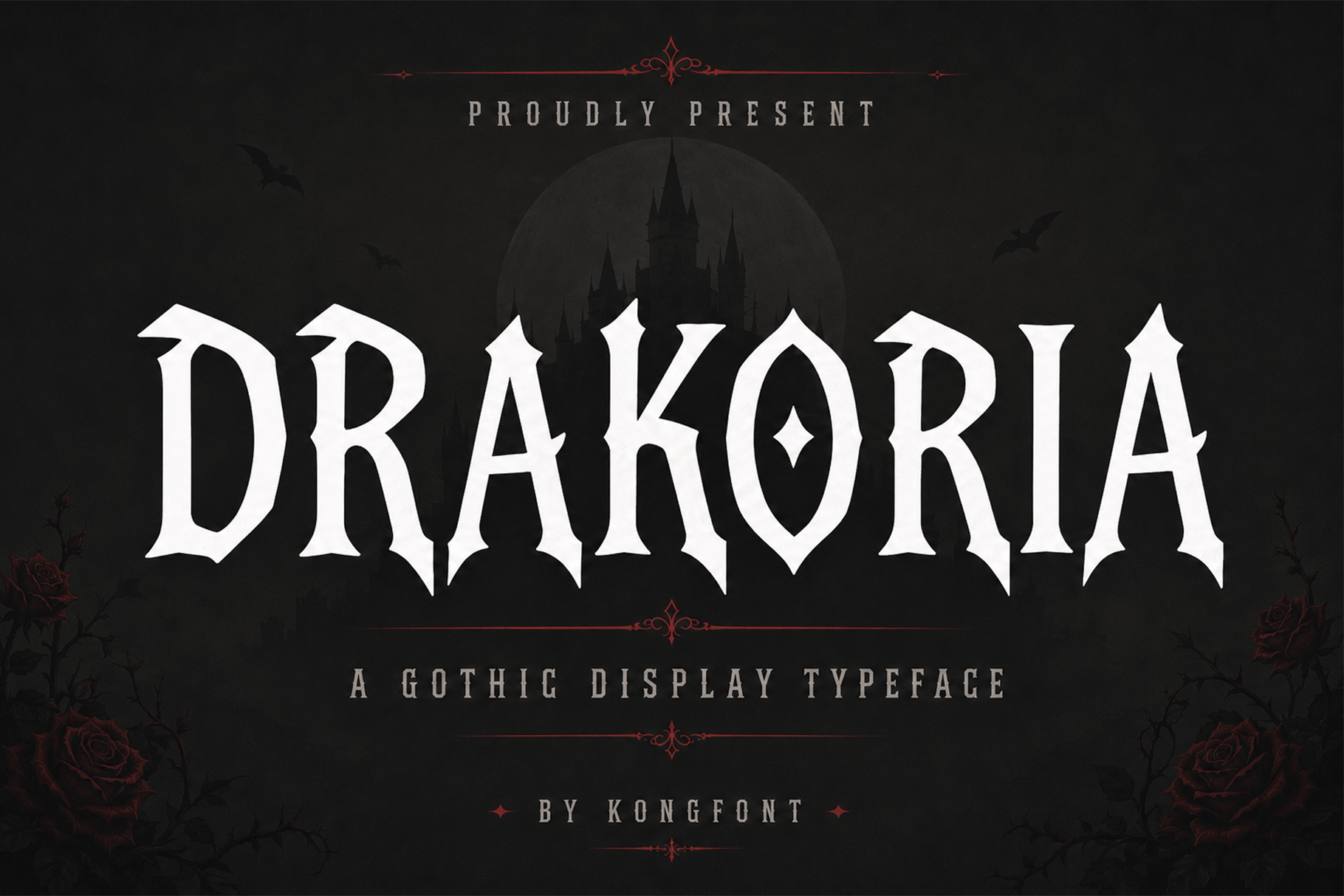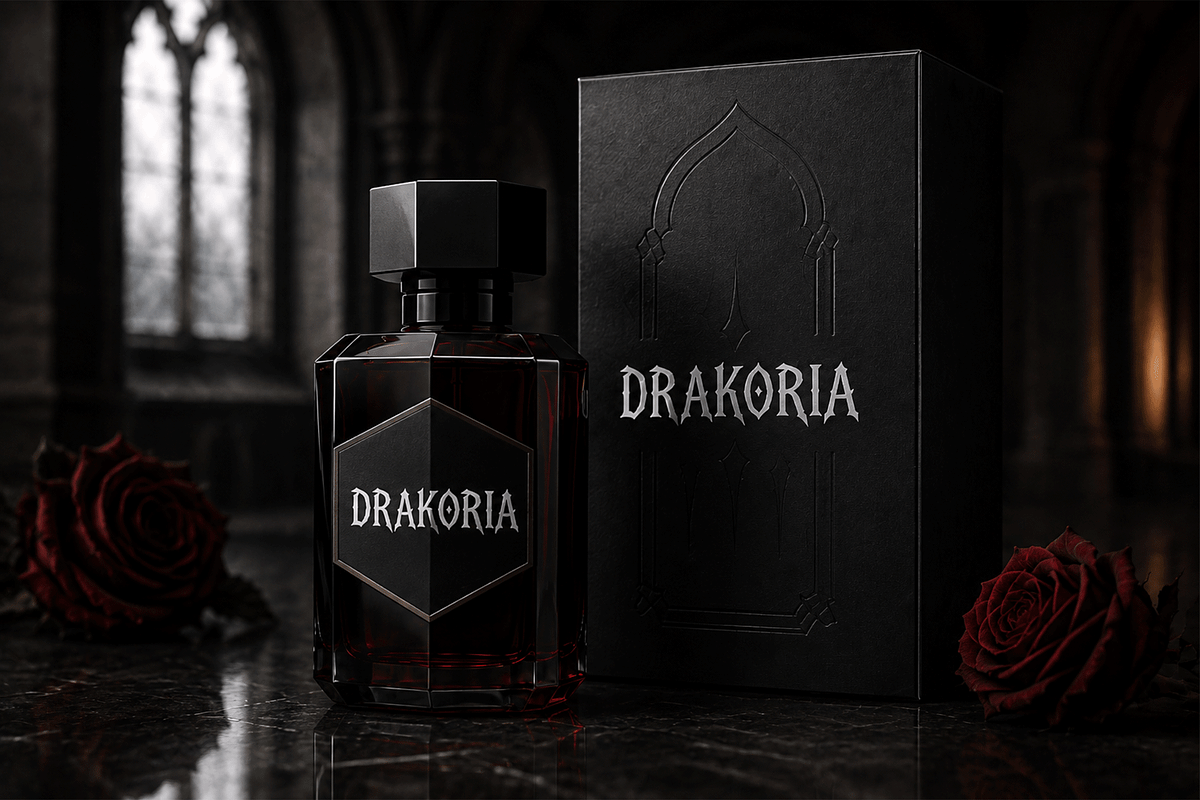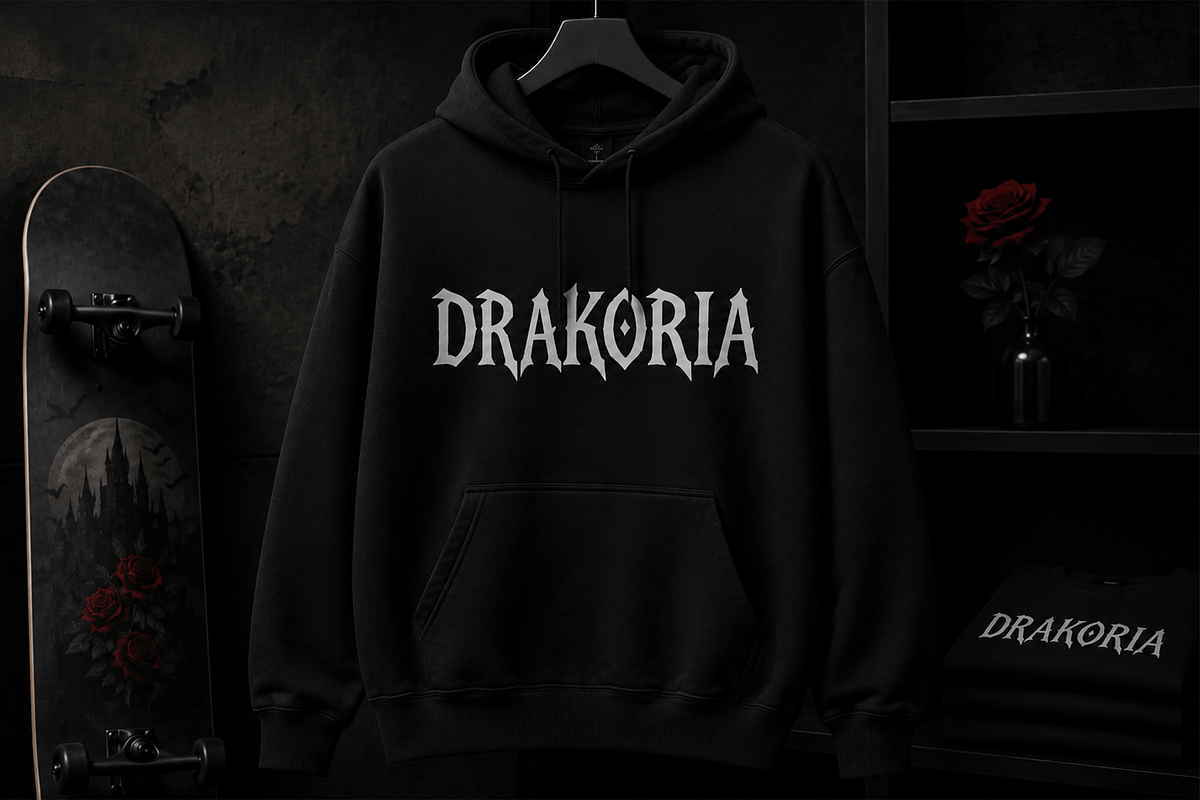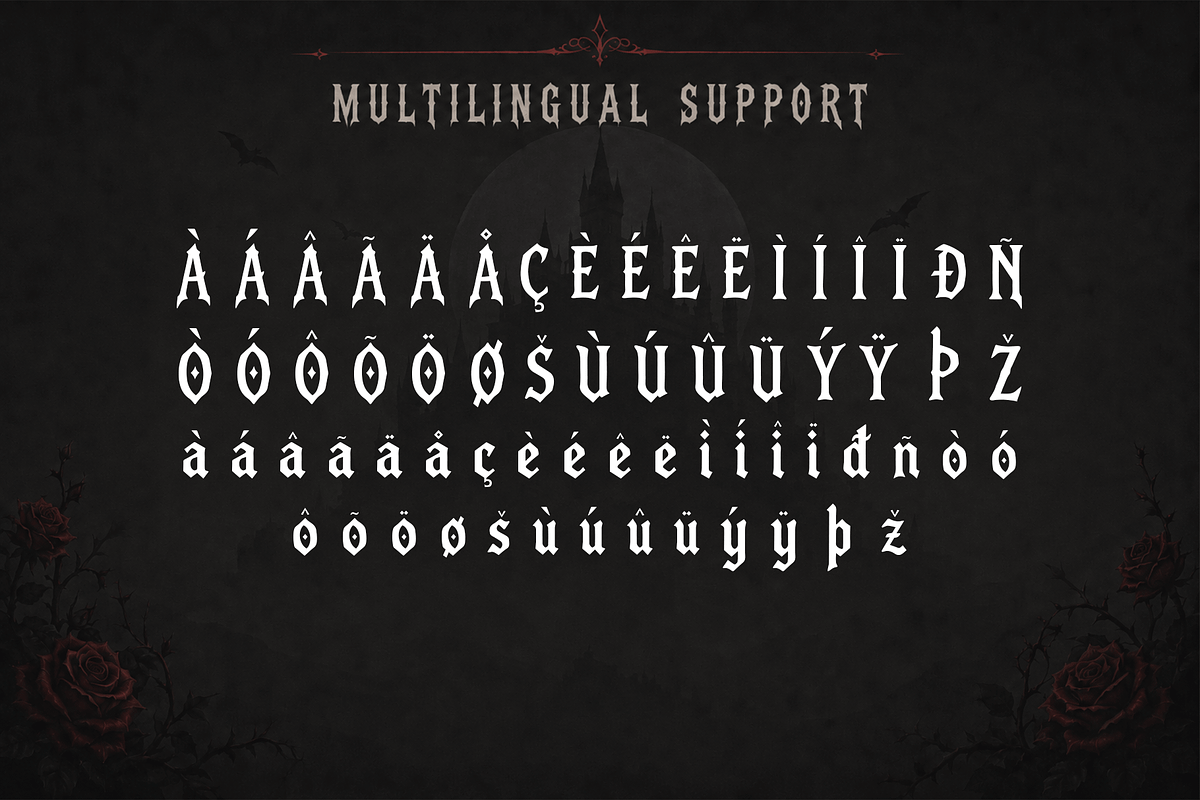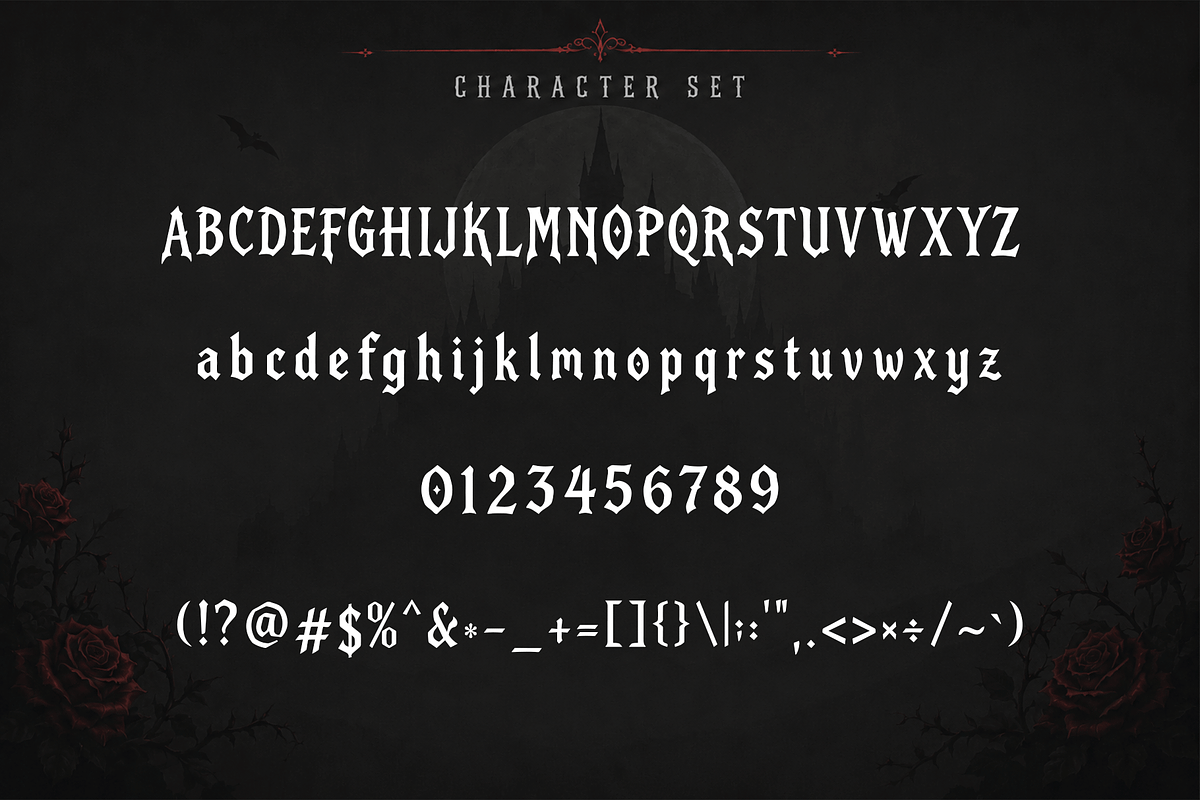
Drakoria - Gothic Fantasy Typeface
Drakoria - Gothic Fantasy Display Typeface
Meet "Drakoria," a dramatic gothic display typeface inspired by dark fantasy, medieval legends, ancient castles, and mysterious supernatural worlds. Featuring sharp terminals, tall sculpted letterforms, and striking angular details, Drakoria delivers a commanding visual identity with an elegant yet intimidating character.
Its distinctive gothic construction makes Drakoria perfect for fantasy branding, horror titles, game logos, book covers, movie posters, album artwork, apparel, merchandise, event graphics, and cinematic typography. The strong letter shapes create maximum impact in headlines and large display compositions while maintaining a refined and carefully crafted appearance.